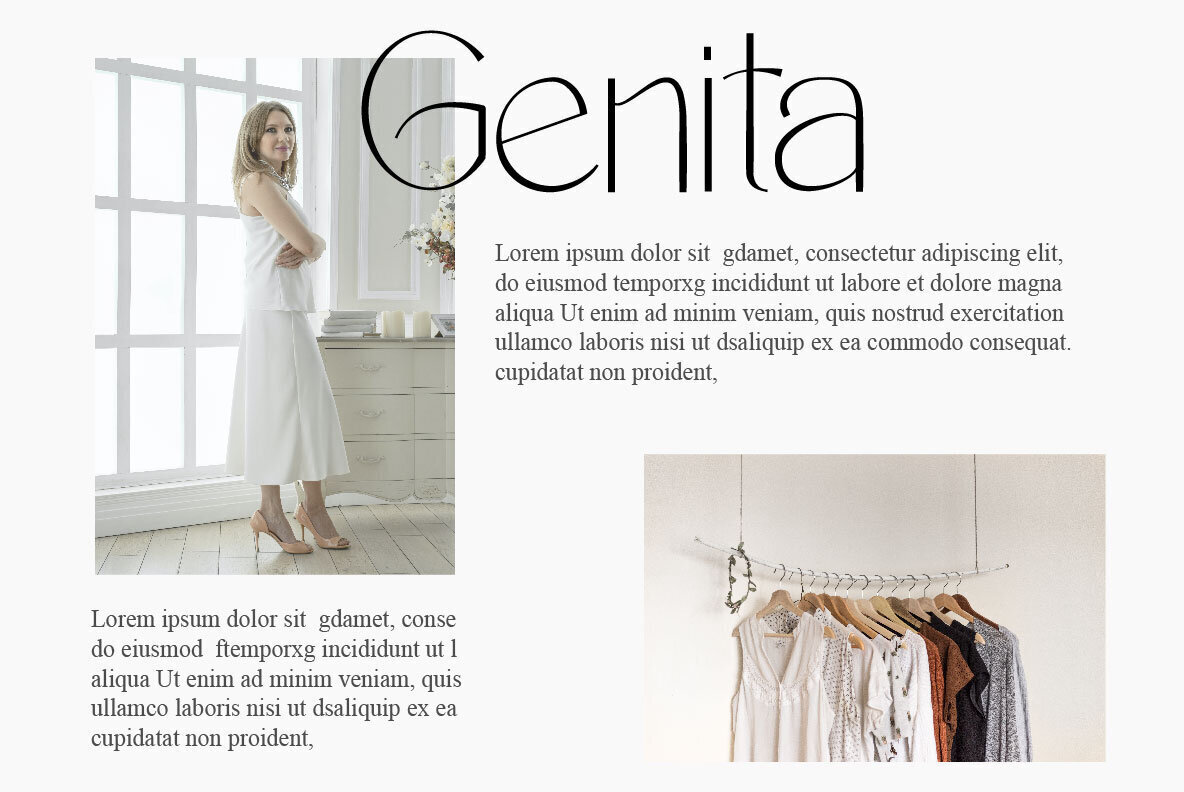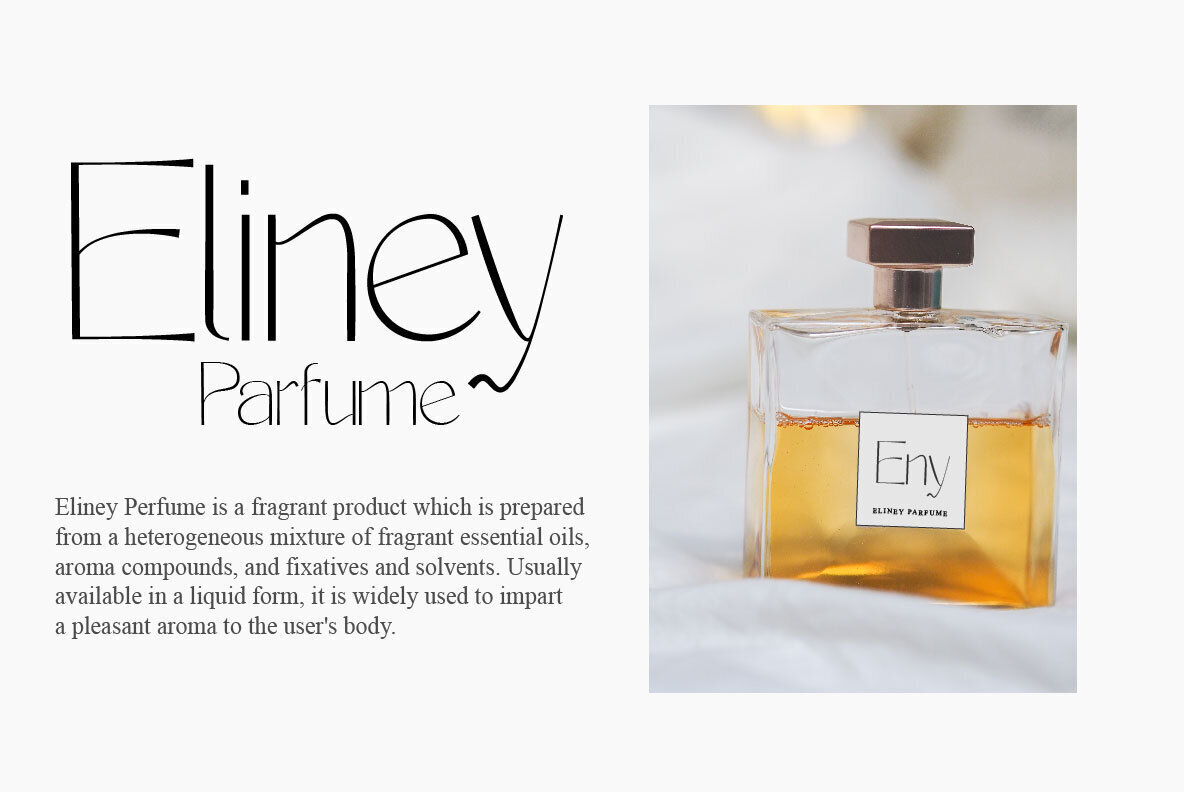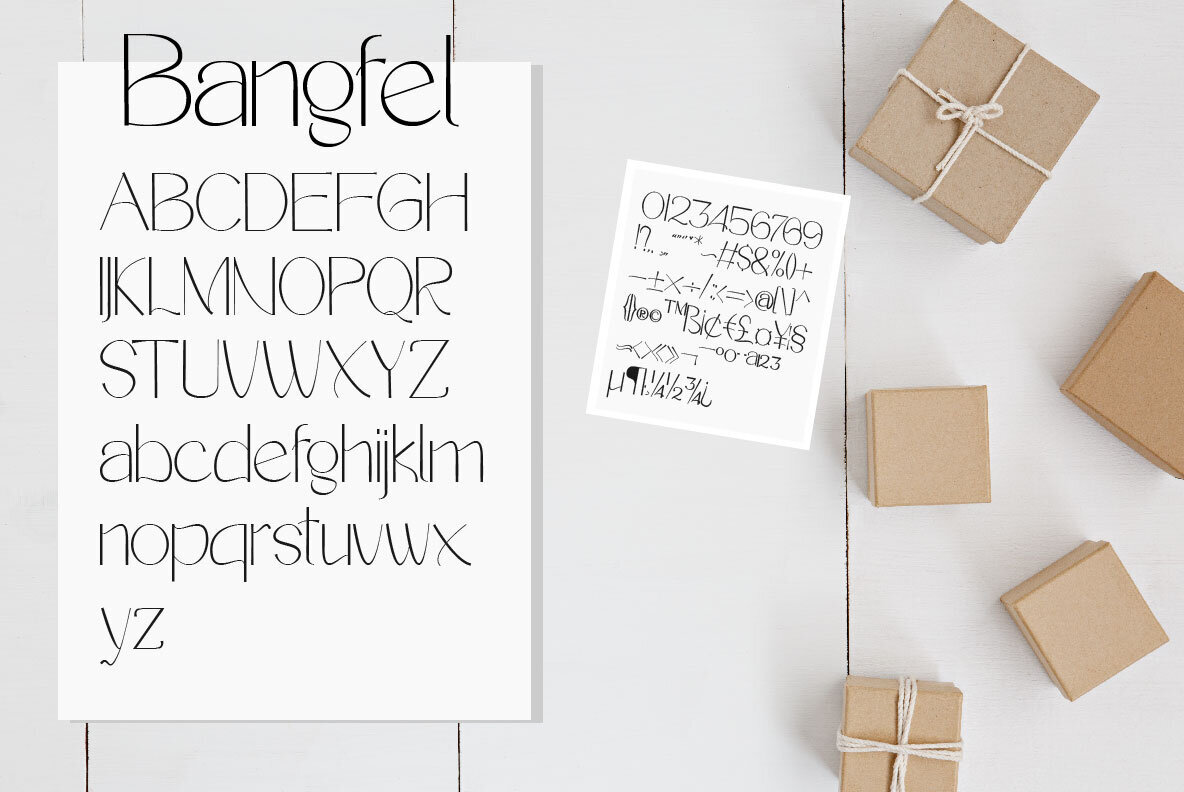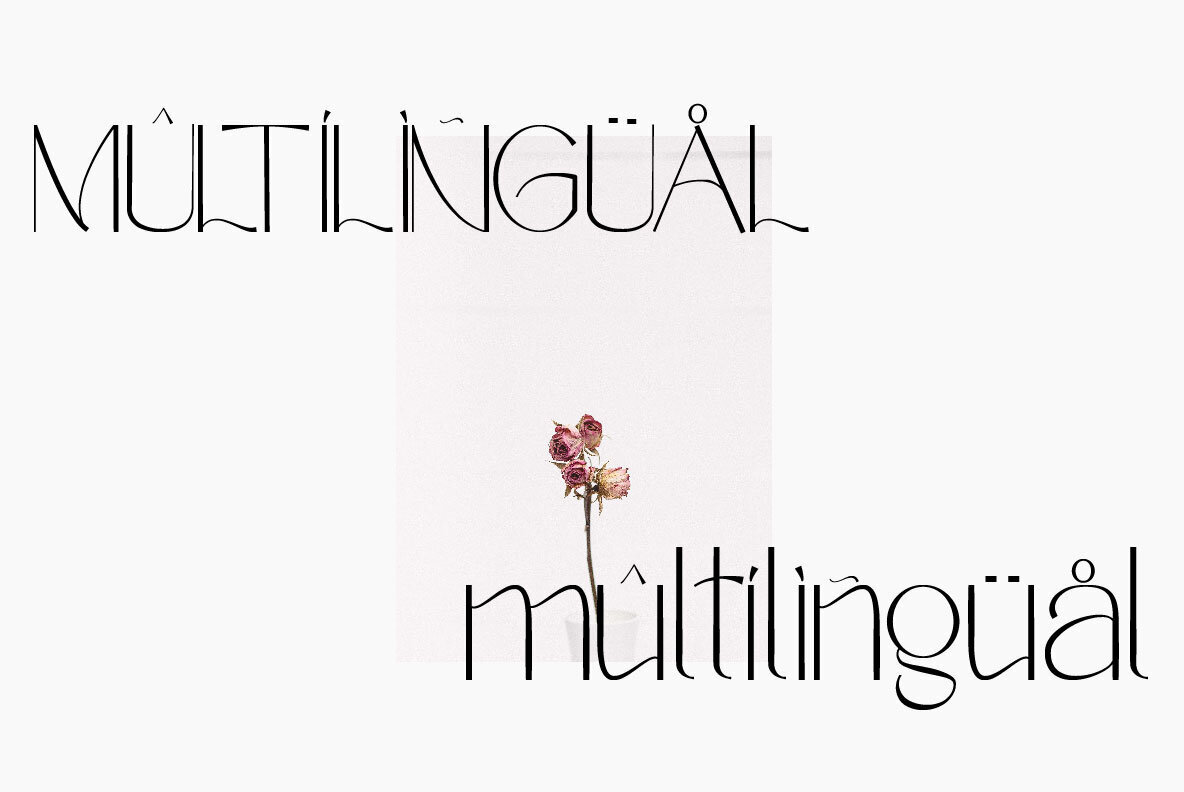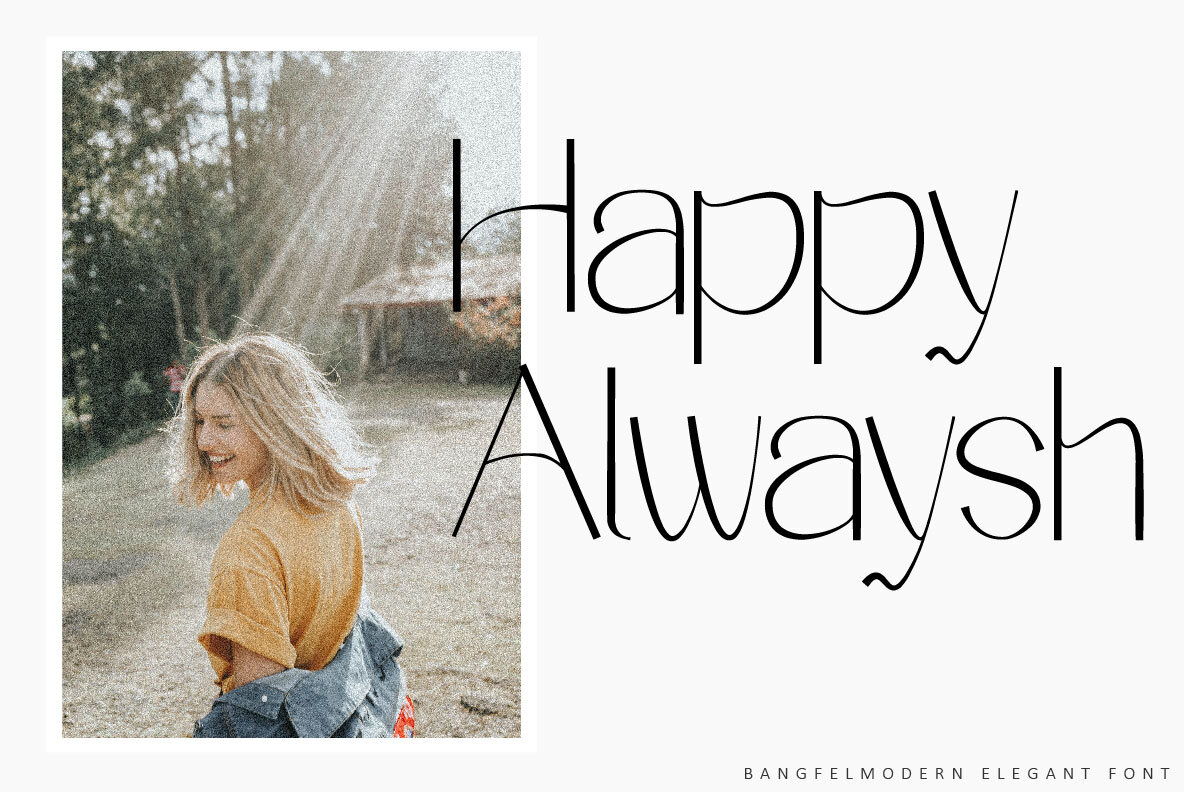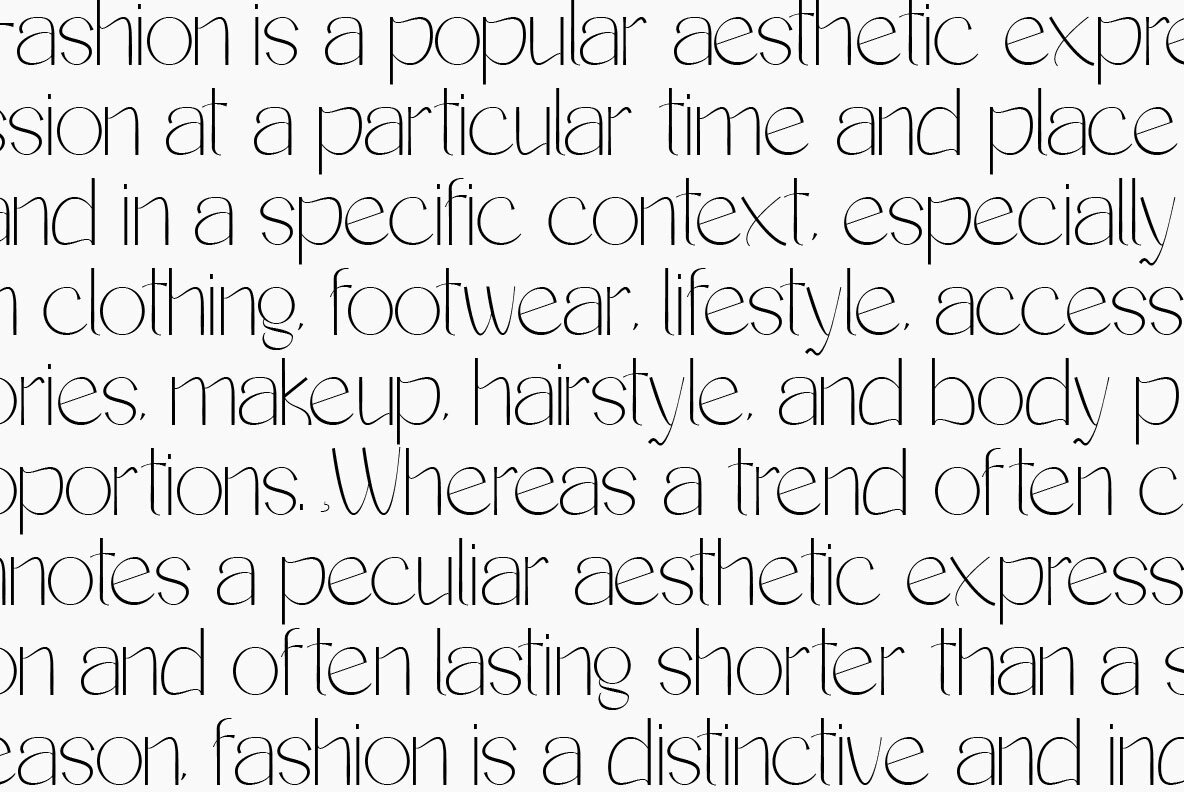
Bangfel Font
Bangfel
Bangfel is a modern font that is both memorable and stylish. The smooth curves of the a and the curved stems of the ascending letters make for a unique font. It's a mix between a classic serif and a futuristic sans serif. Bangfel comes with a full uppercase, lowercase, numbers and punctuation + European language support. This font is perfect for fashion related branding or editorial design and displays both masculine and feminine qualities.